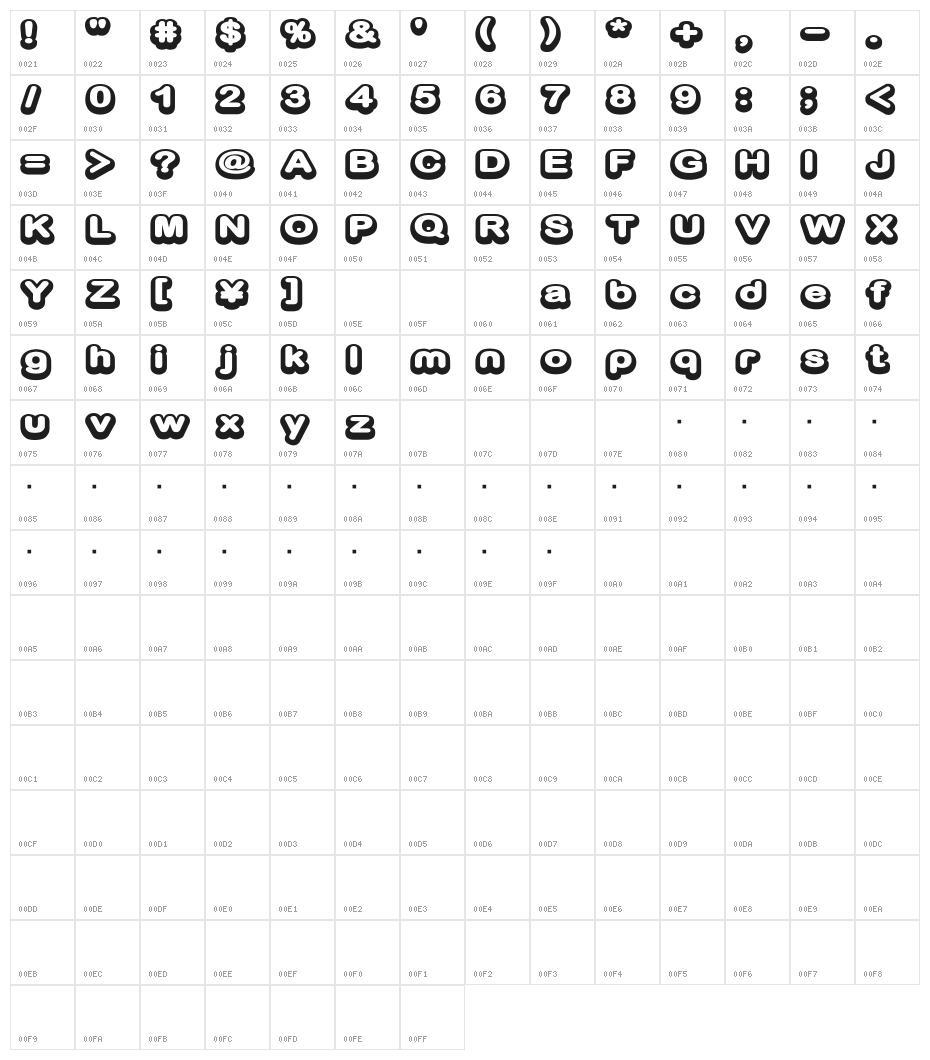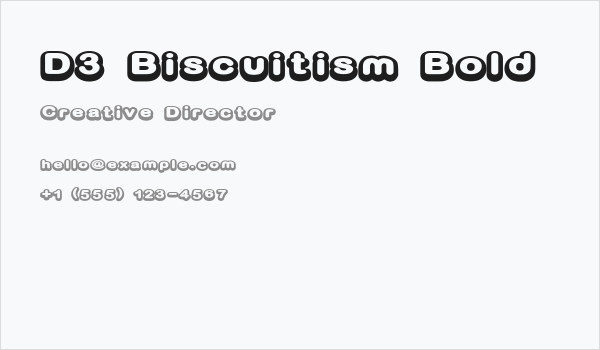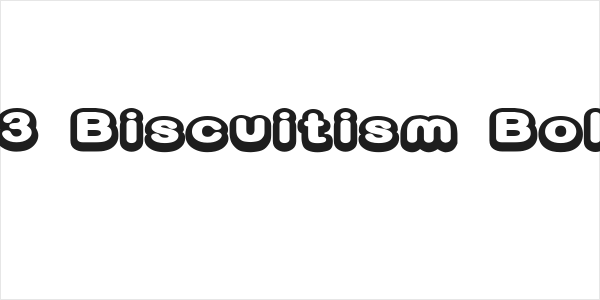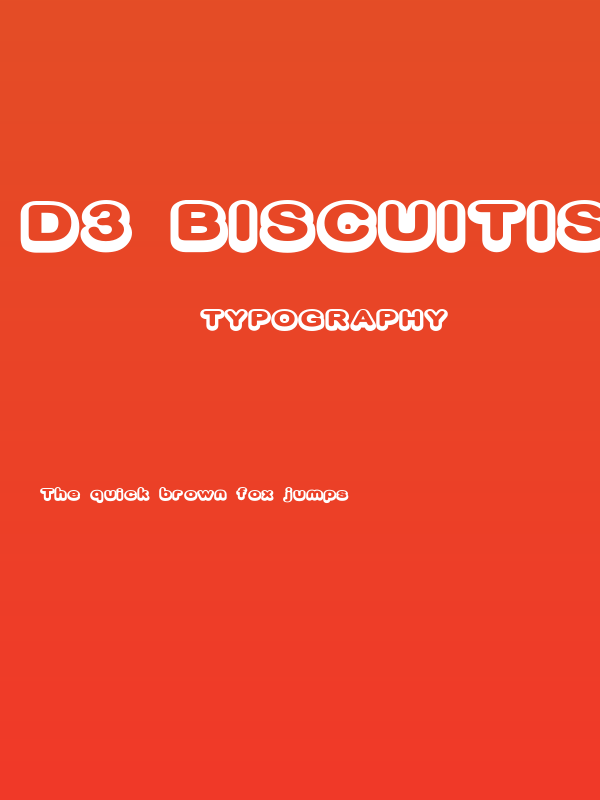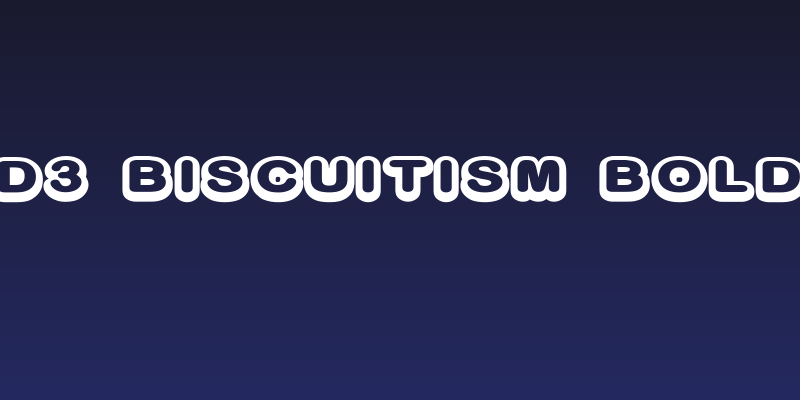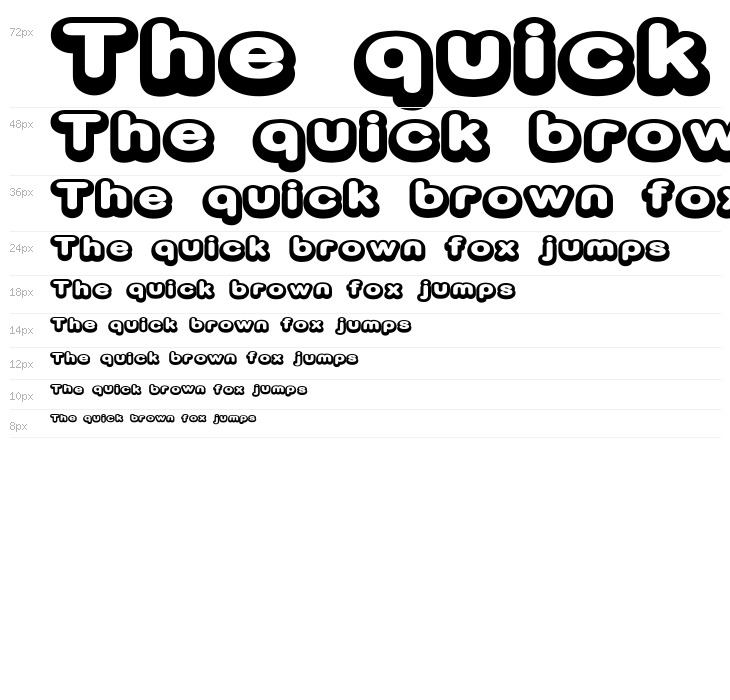
D3 Biscuitism Bold Font
D3 Biscuitism Bold Description
This font features bold, rounded characters with a playful and bubbly appearance. Each letter is outlined with a thick black border, enhancing its visibility and giving it a three-dimensional effect. The characters are evenly spaced, contributing to a balanced and harmonious look. The font's style is reminiscent of retro or vintage designs, making it ideal for projects that require a fun and engaging aesthetic. Its boldness ensures that it stands out, making it suitable for headlines or titles that need to capture attention.
Overall StyleVintage
Proposed ProjectsIdeal for children's books, playful branding, retro-themed posters, and eye-catching headlines.